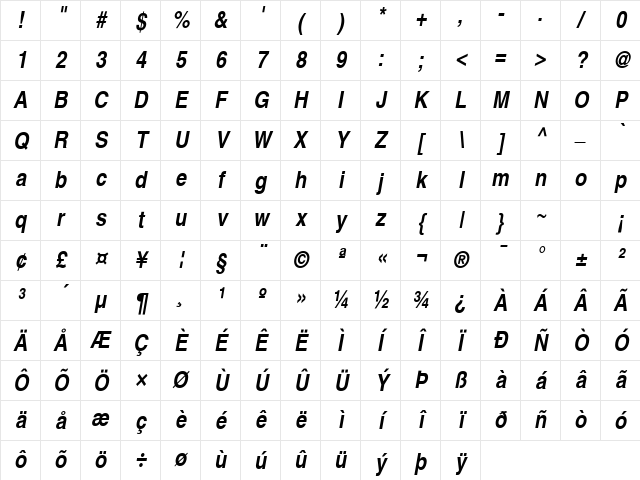
Sans Narrow BOLDITALIC
Style: BOLDITALIC
Design Context for Sans Narrow
Sans Narrow is a composed and adaptable typeface that performs quietly and consistently across a wide range of design contexts. The slanted form adds forward momentum and visual energy. Its bold stroke weight gives it real presence on the page. Its narrow stance lets it pack a punch even in space-constrained designs.
Pro Tip: Use Sans Narrow for emphasis, pull quotes, and subheadings where its slanted energy can add rhythm to the layout.